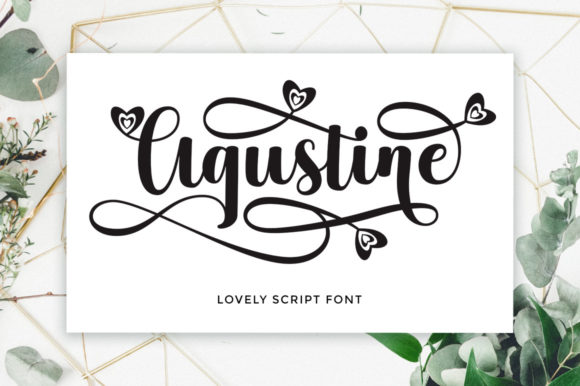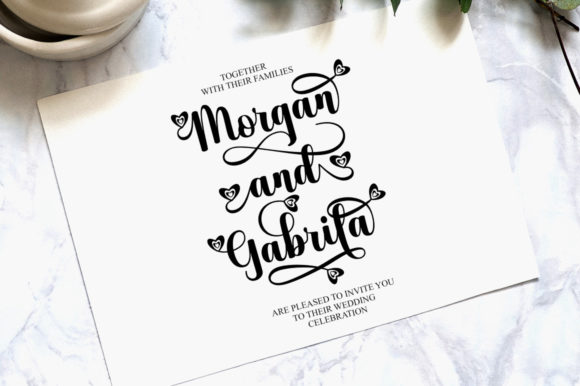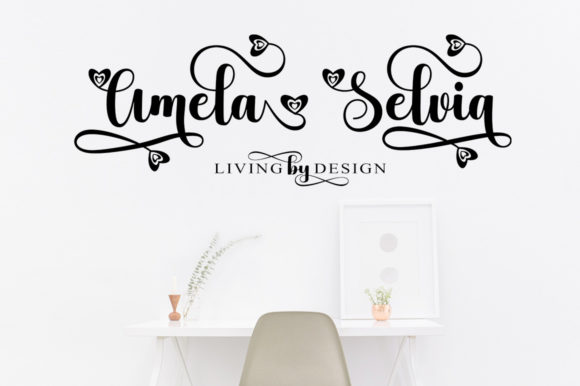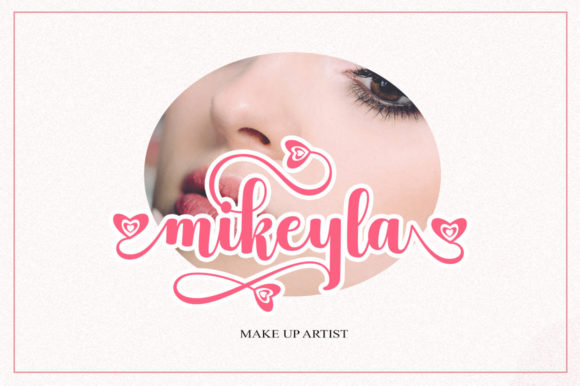
About Agustine Script Font
Agustine Script an equally sophisticated and bold handwritten font that’s great for delivering any message with confidence, authenticity and charm. It will elevate a wide range of crafting ideas, from cards, to branding, labels and much more. Agustine Script is PUA encoded which means you can access all of the amazing glyphs and ligatures with ease!